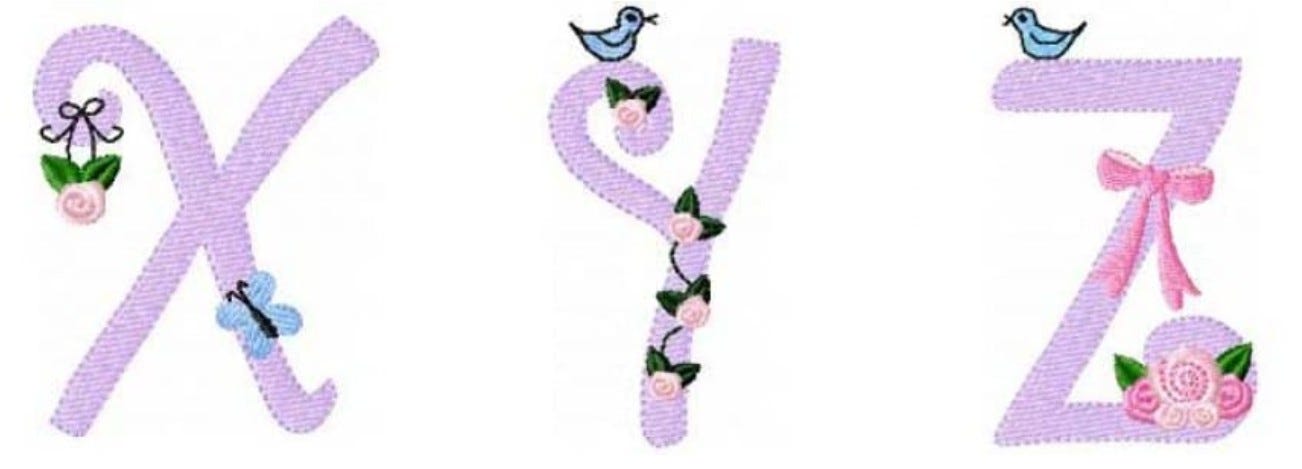
Abby's Decorated Filled Stitch Embroidery Font by Oma's Place
This whimsical, shabby chic alphabet Was designed with towels in mind. It stitches out very smoothly, remains very pliable, and does not "disappear" in the loops of the towel as some alphabets do. Each letter is approximately 3 inches tall.